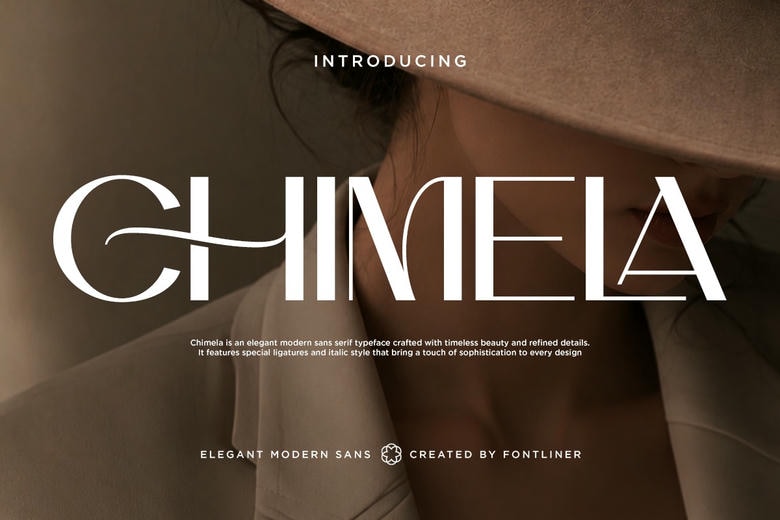
Chimela Font
Chimela is a display sans-serif font that brings a modern and refined touch to visual identities. Its unique letter shapes, smooth curves, and balanced design combine minimalism with a sense of high fashion.
Chimela works well for fashion branding, beauty products, luxury packaging, magazines, boutique labels, posters, ads, and modern logos. It makes an impact in bold headlines, elegant wordmarks, and campaign titles.
Chimela’s stylish and expressive design brings a premium editorial look tos both minimalist and sophisticated projects. It’s a versatile choice for designers aiming to create modern brands with an elegant, feminine, and fashion-forward style.
Chimela Sans Serif Font